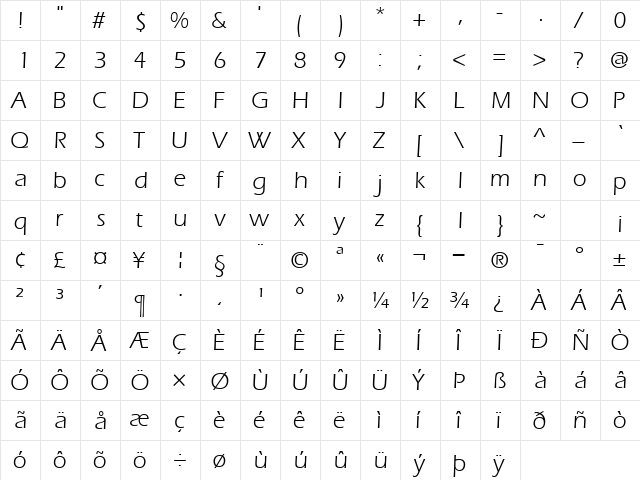
SpeedoSSK Regular
Design Context for SpeedoSSK Typeface
SpeedoSSK takes a measured approach to typography — its balanced proportions and neutral character make it a reliable workhorse for both digital and print work.